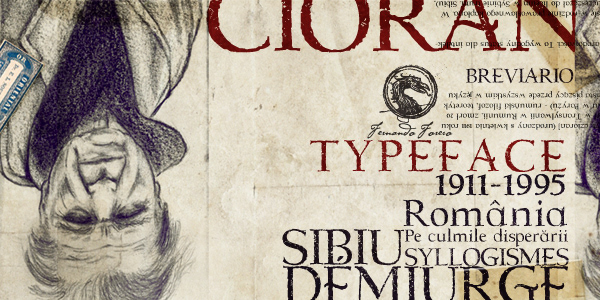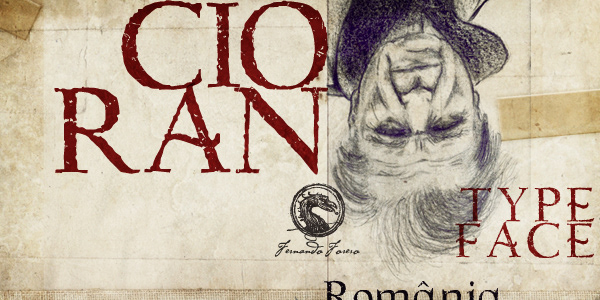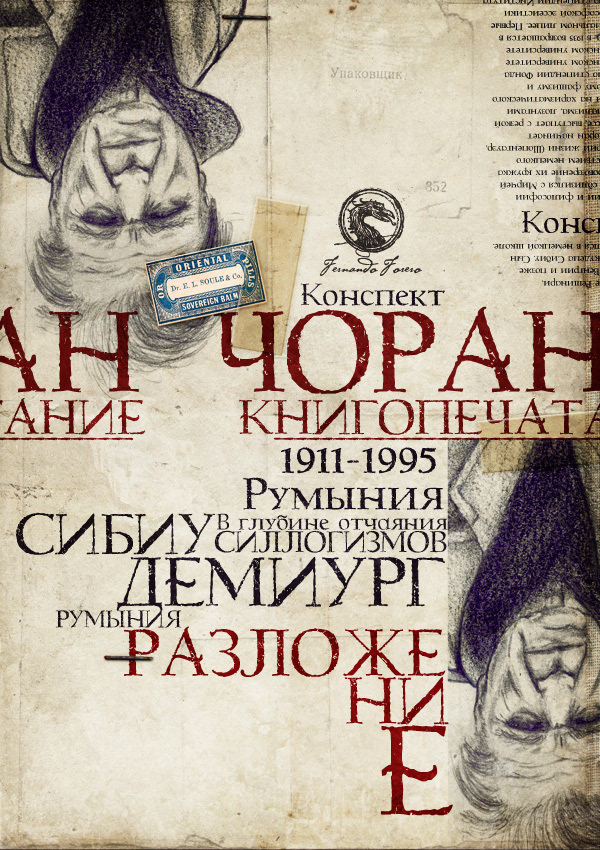
Promotional material to offer the sale of the CIORAN font, a typeface that was created as a tribute to one of my favorite writers, the Romanian philosopher E.M. Cioran.
Material promocional para ofertar la venta de la fuente CIORAN, una tipografía que nace como un homenaje a uno de mis escritores favoritos, el filosofo Rumano E.M. Cioran.